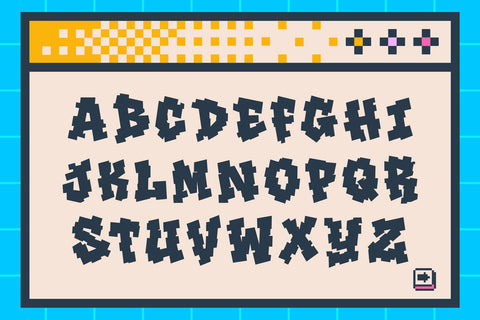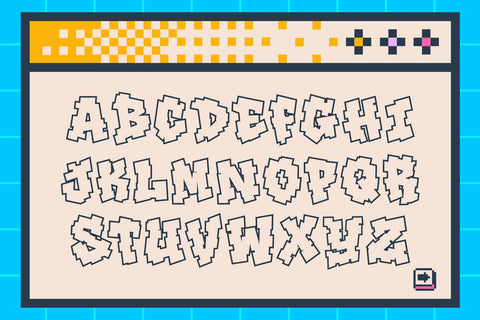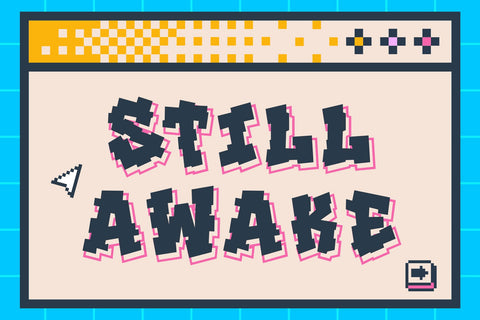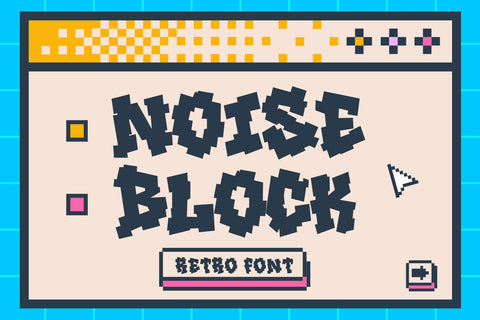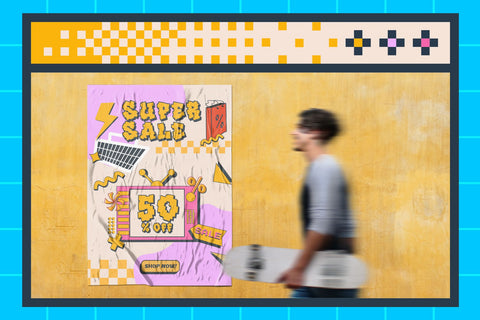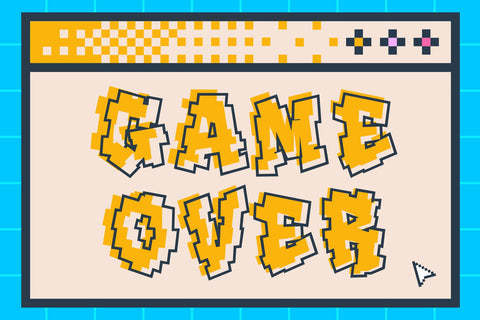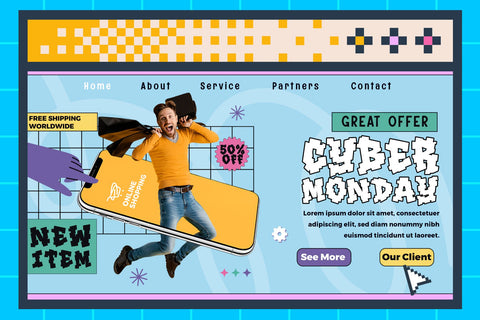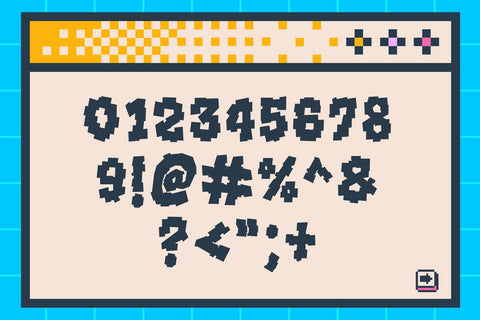
Noise Block - Pixelated Graffiti Retro Font
Noise Block is a pixelated graffiti retro font that blends nostalgic 8-bit game aesthetics with the rebellious energy of street art. It’s bold, edgy, and bursting with attitude — a perfect fusion of digital imperfection and urban creativity. Every letter looks handcrafted from pixels, giving it a jagged, dynamic rhythm that feels alive and expressive.
Inspired by early computer graphics, arcade games, and graffiti murals, Noise Block takes you back to the golden era of digital art — where pixel glitches were style, not errors. Its geometric shapes and raw outlines are intentionally imperfect, giving your design that DIY retro feeling with a streetwear twist.
Noise Block isn’t just another retro display font — it’s a full visual experience. With its playful digital block forms and strong street vibe, it’s designed for creatives who want to bring nostalgic aesthetics into modern projects. From gaming visuals and brand logos to posters and apparel, it adds character and motion to any composition.
The blocky letterforms are designed with bold consistency, making them instantly recognizable. Each character’s rough geometry and handcrafted balance bring a nostalgic yet rebellious charm that works perfectly for designs that stand out with bold simplicity.
- Uppercase Letters with bold, sharp shapes
- Numbers and Punctuation for full usability
Perfect For:
- Retro 8-bit and 16-bit game design
- Streetwear, music, and youth branding
- Posters, covers, and merchandise
- YouTube visuals, pixel art, and tech layouts
- Esports, gaming, and creative events
Why Designers Love Noise Block
Because it’s pure nostalgia with an edge. Noise Block transforms simplicity into power — using pixel texture and graffiti rhythm to create something that feels fun, daring, and unique. The jagged design gives your text a glitchy digital personality, while the graffiti influence adds flow and attitude.
It’s perfect for anyone who loves bold, vintage aesthetics but wants to keep things fresh and modern. Whether you’re designing retro-inspired visuals or futuristic digital art, Noise Block gives your words a distinct look that’s both playful and striking.